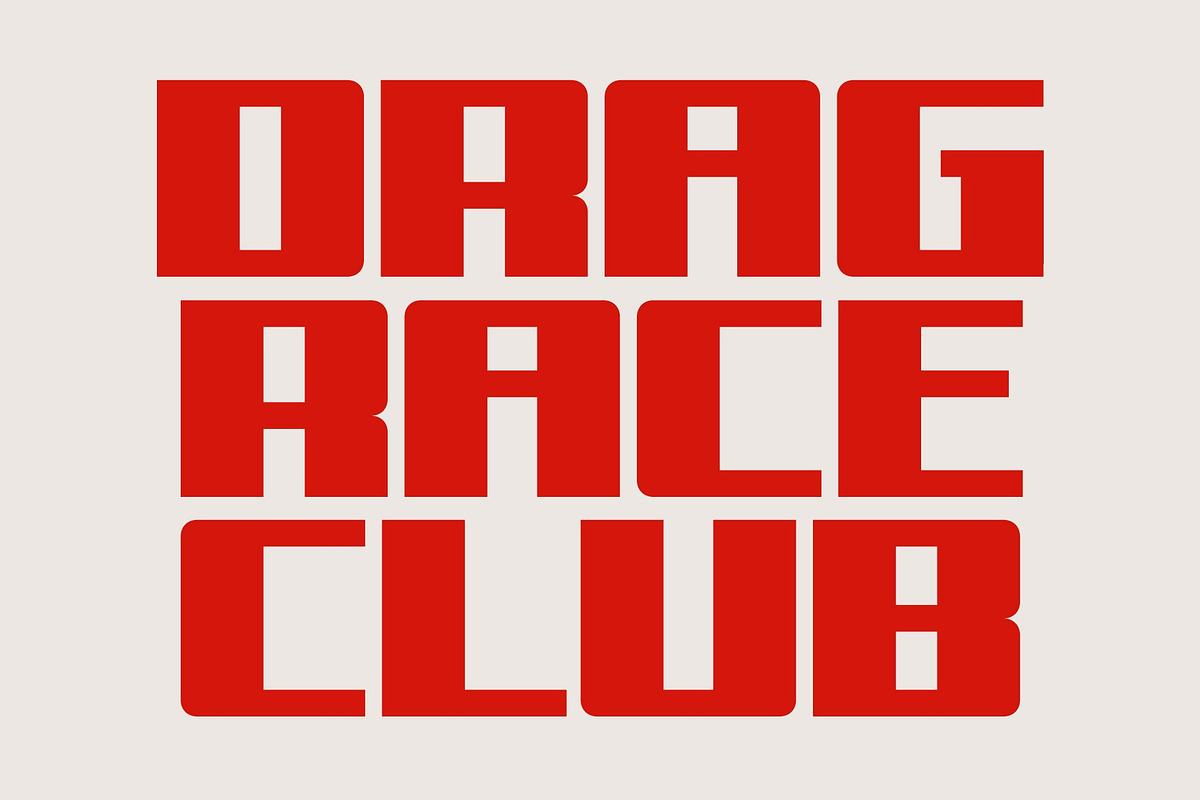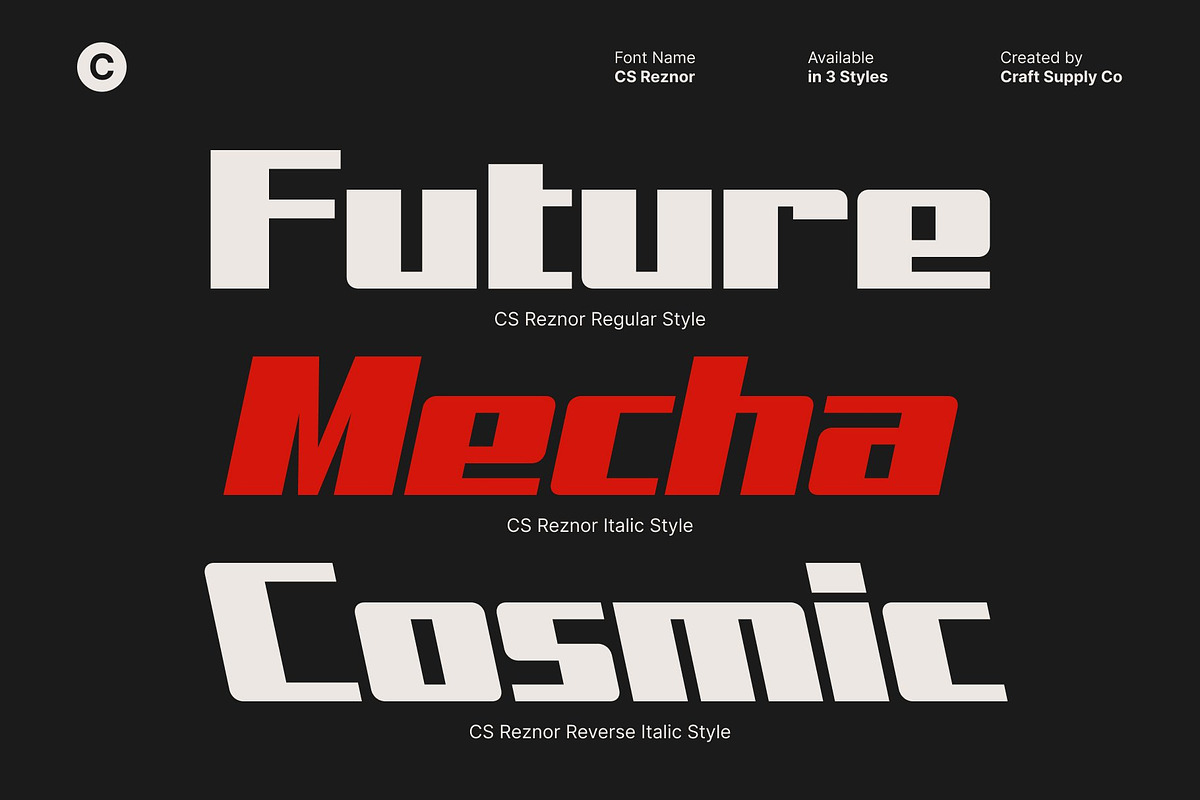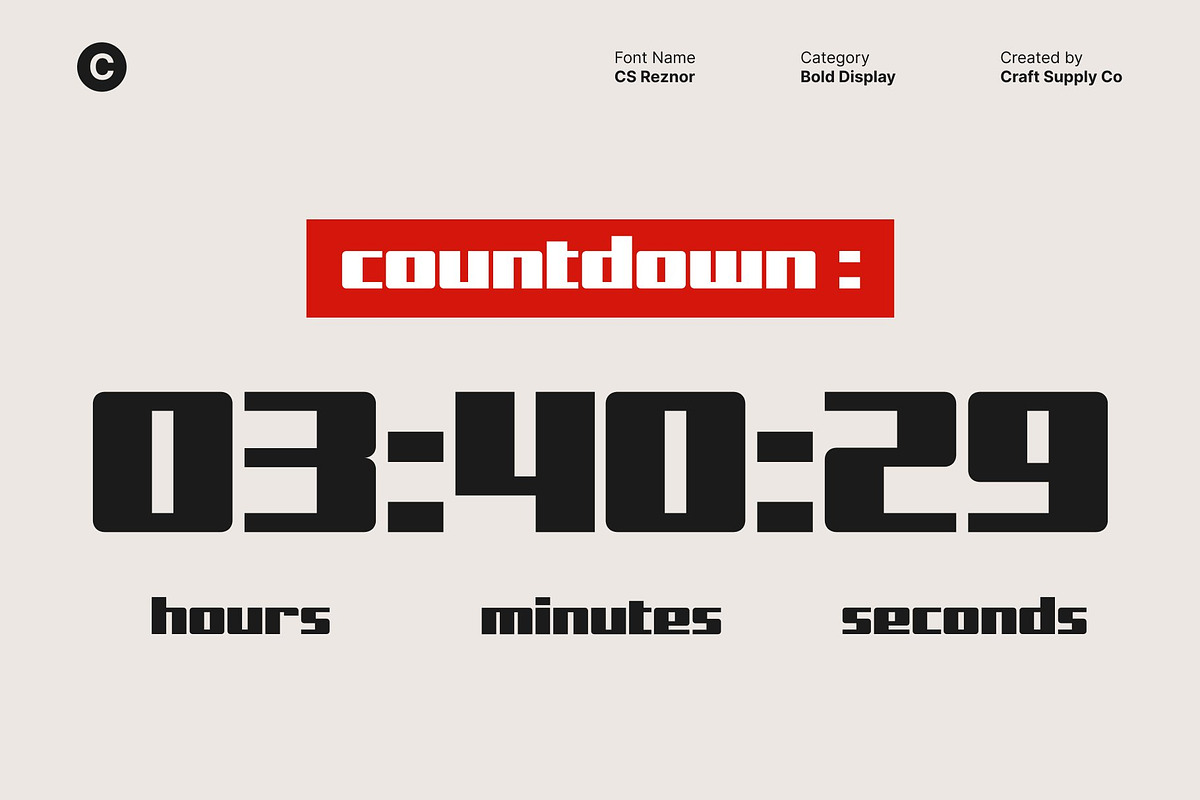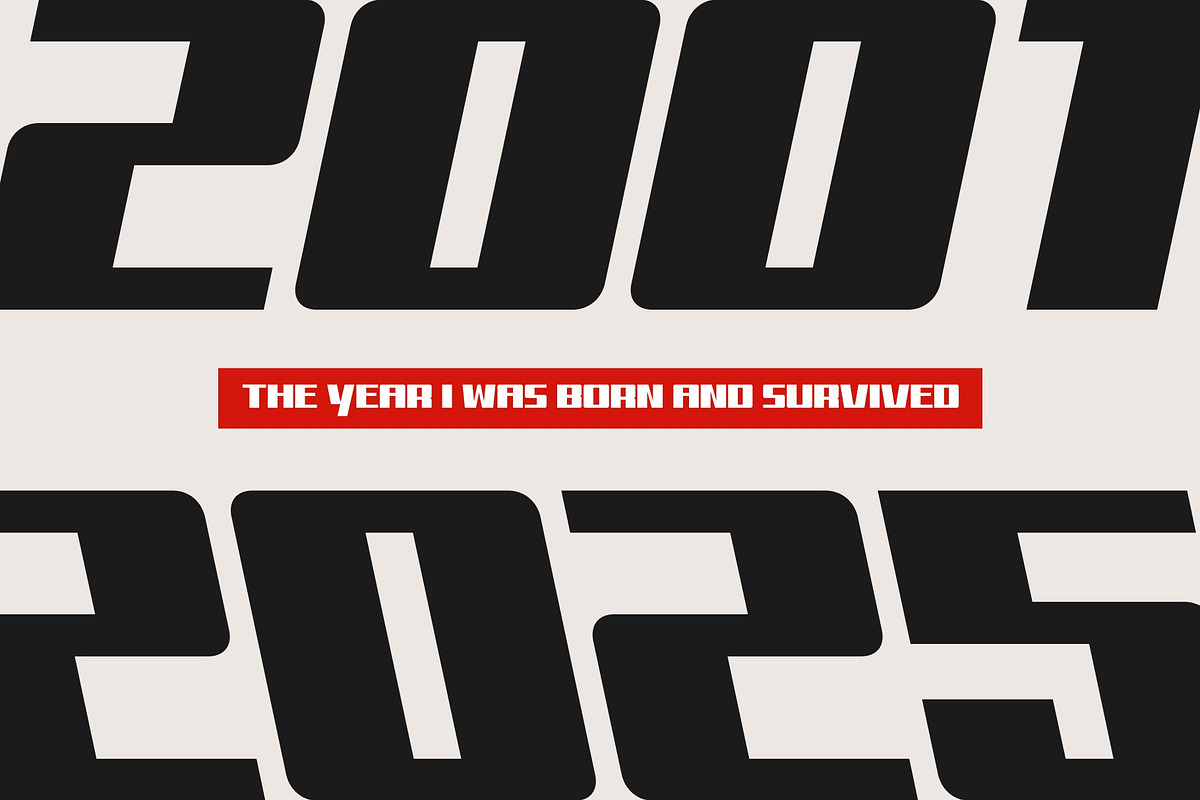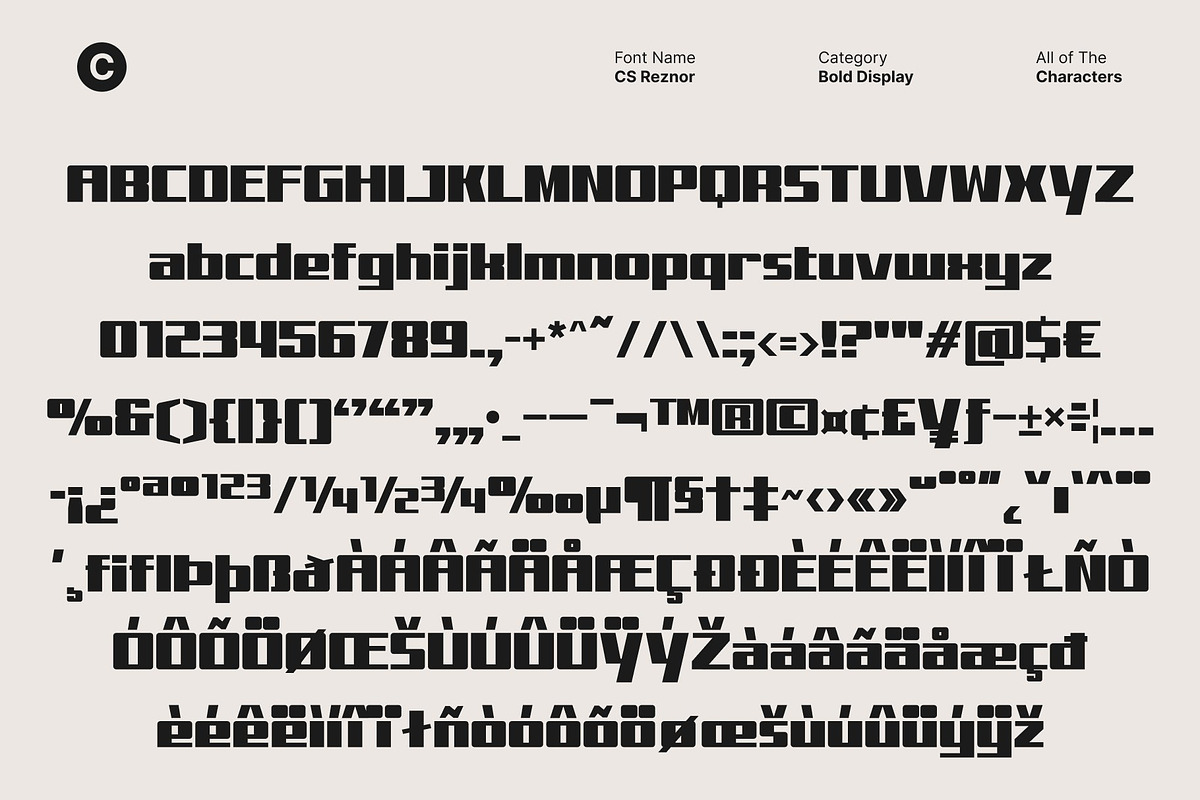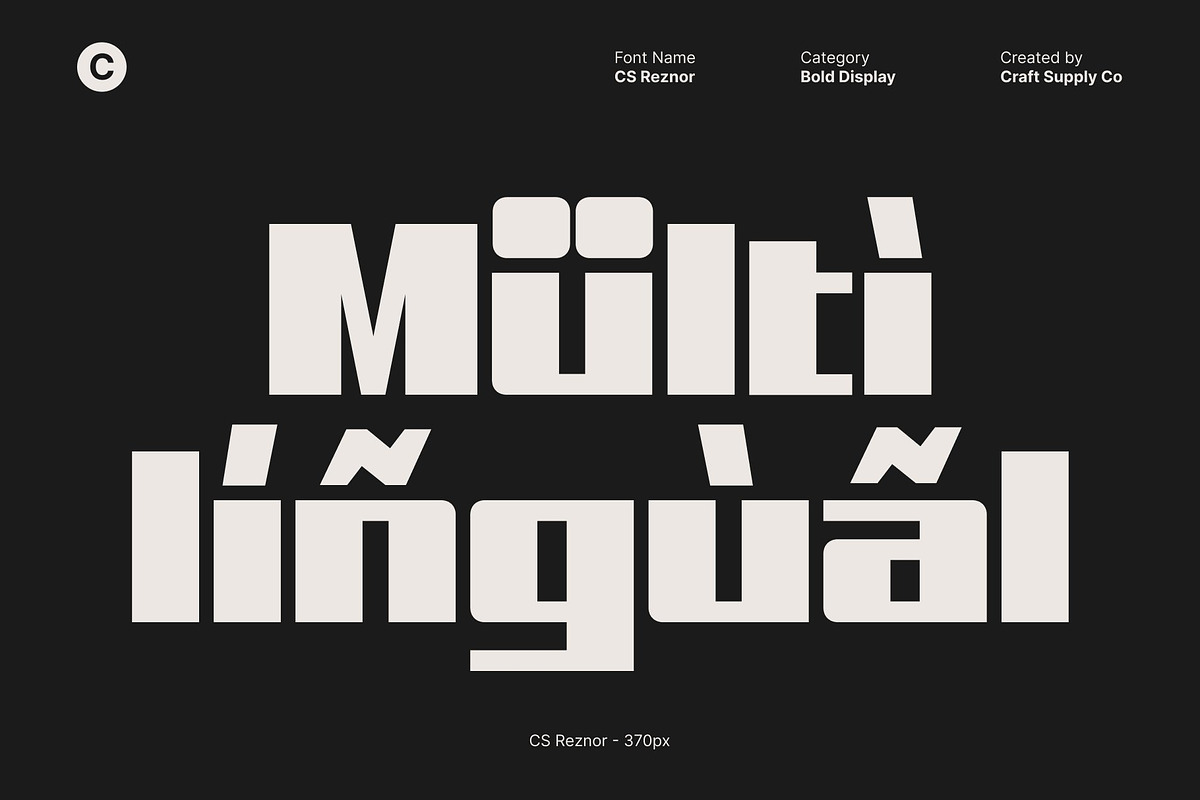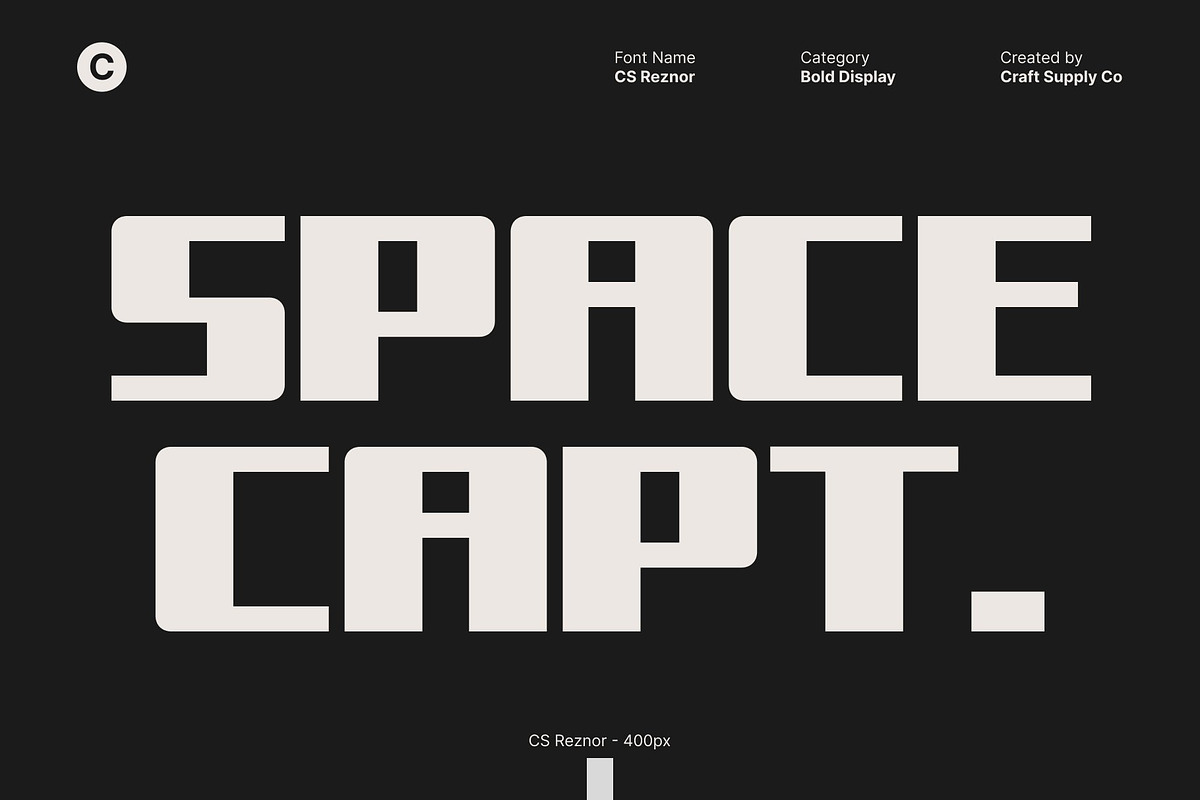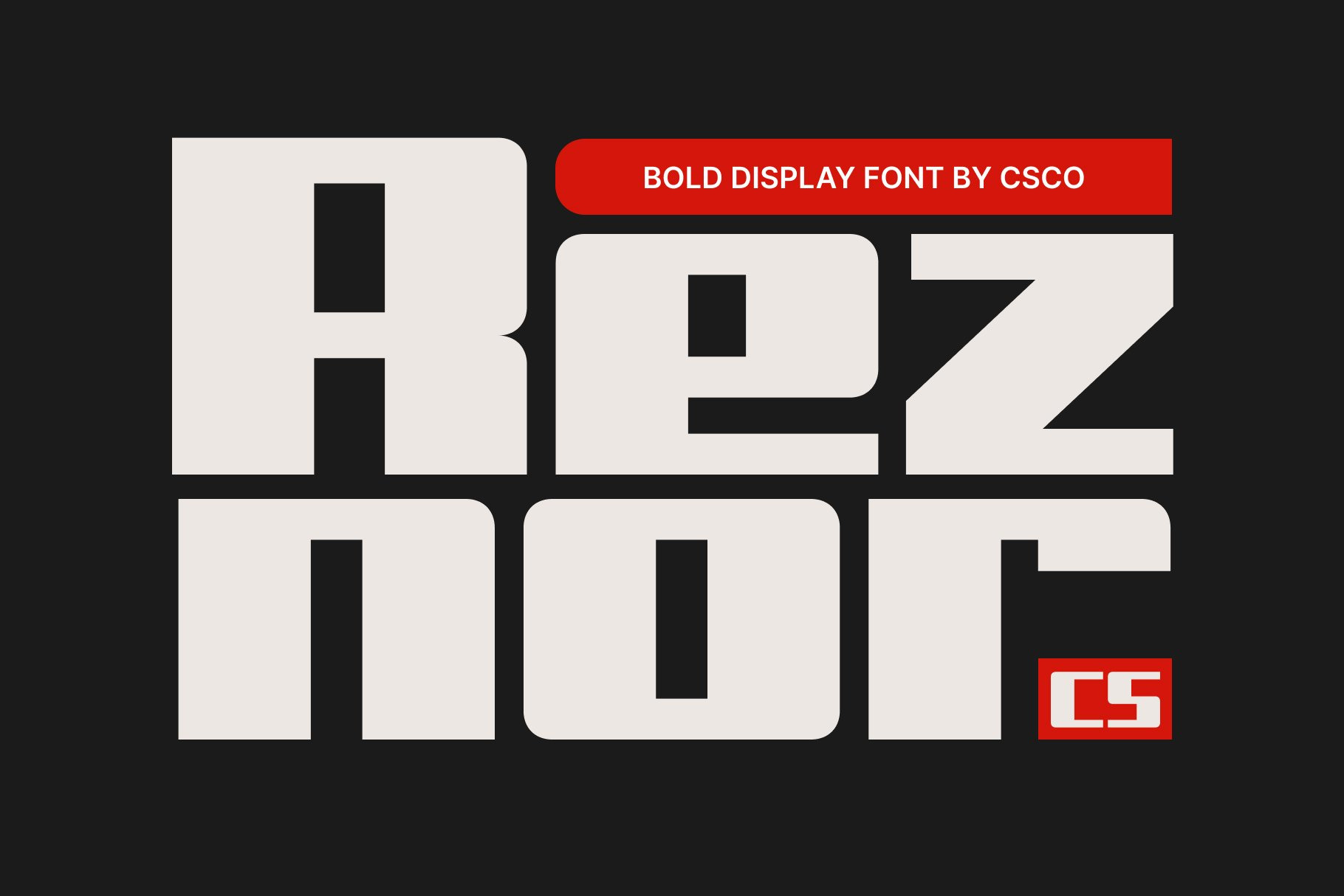
CS Reznor – Bold Display Font
CS Reznor – Digital Power in Bold Form
A Display Sans Serif Built for Maximum Impact This is a bold display sans serif font engineered to command attention from the very first glance. With its heavy weight, sharp presence, and unmistakable structure, this typeface is designed to dominate visual spaces. Every letter stands tall with confidence, making it an ideal choice for modern designers seeking a strong, authoritative typographic voice.
Digital Vibes with Masculine Strength Drawing inspiration from digital aesthetics and futuristic styling, this font delivers a visually striking appearance. Its firm lines, structured forms, and masculine undertones create a font that feels powerful and contemporary. The digital vibe reinforces a sense of precision and technology, giving your designs a cutting-edge identity that stands out effortlessly.
Perfect for Branding, Headlines, and Poster Art From intense poster layouts to bold headlines and commanding branding projects, this font thrives in environments where visibility and strength matter most. Whether you’re crafting a tech-inspired identity, a music poster, or a bold promotional piece, this font ensures your message hits with clarity and force.
Bold, Confident, and Designed to Stand Out This font’s impactful design makes it perfect for creatives who want typography that leaves a lasting impression. Pair it with minimalist layouts for maximum contrast or integrate it into dynamic graphics for a more energetic feel. No matter how you use it, this font delivers unmatched presence and digital-infused power.
- CS Reznor Regular
- CS Reznor Italic
- CS Reznor Reverse Italic